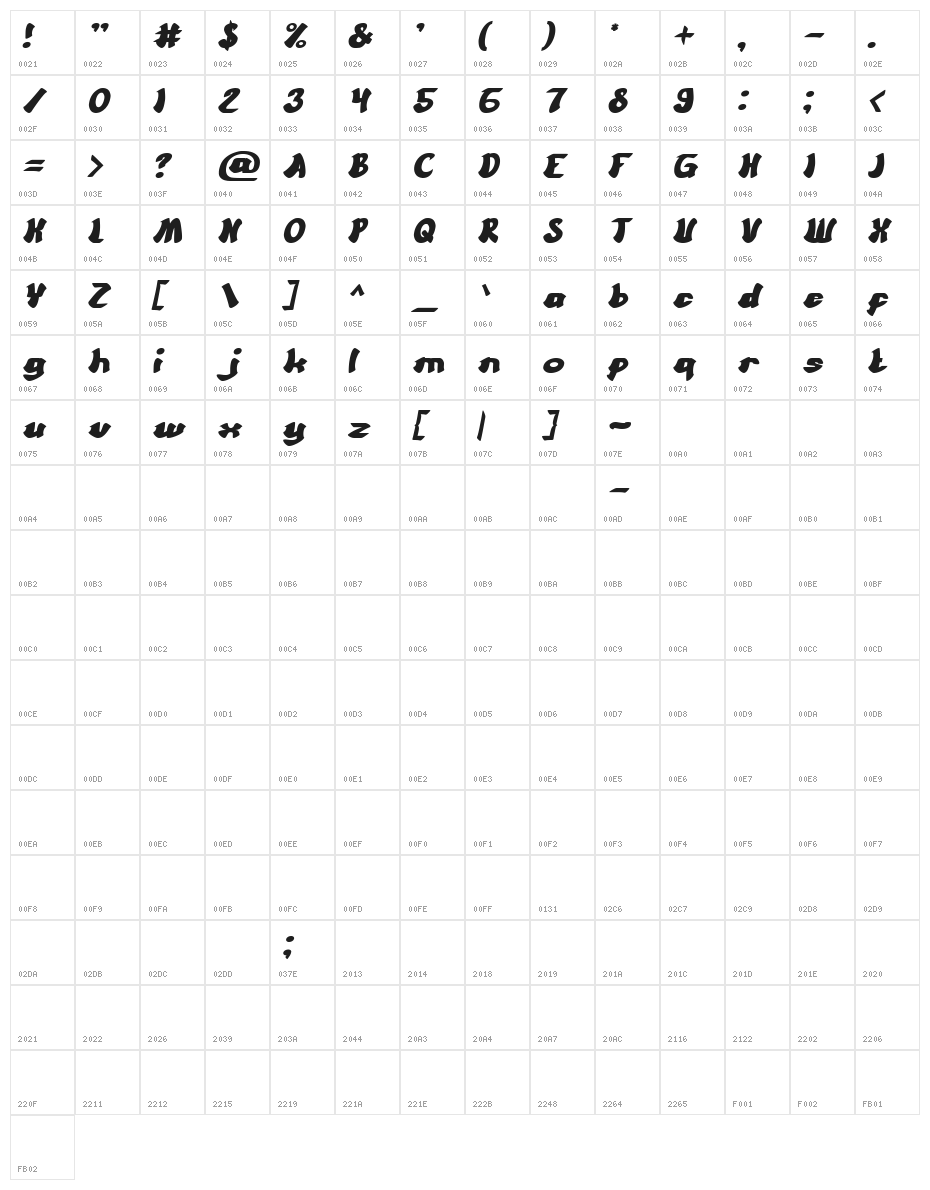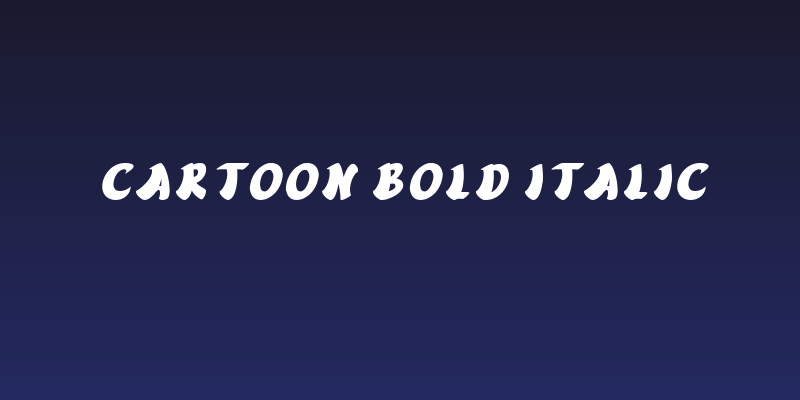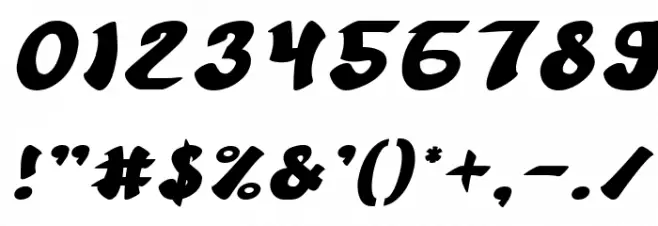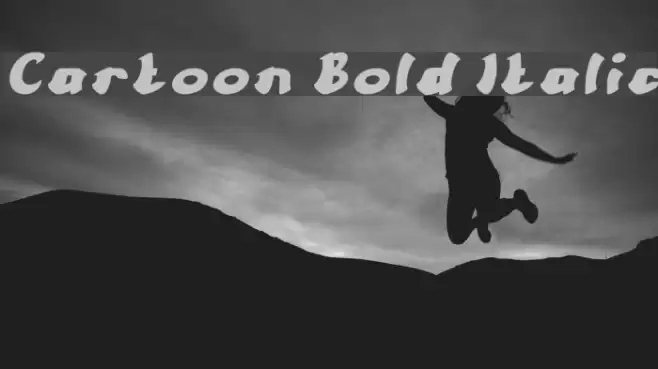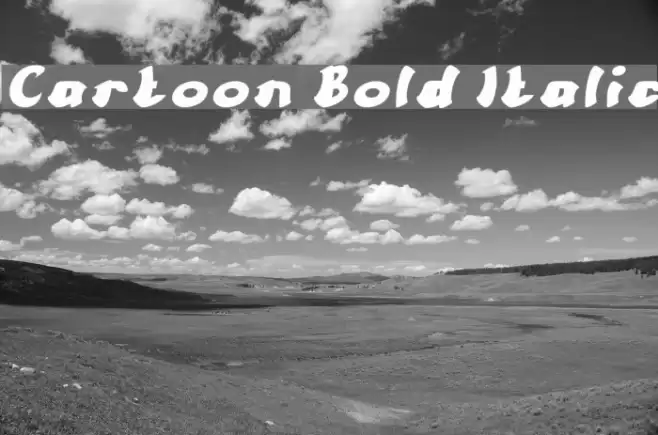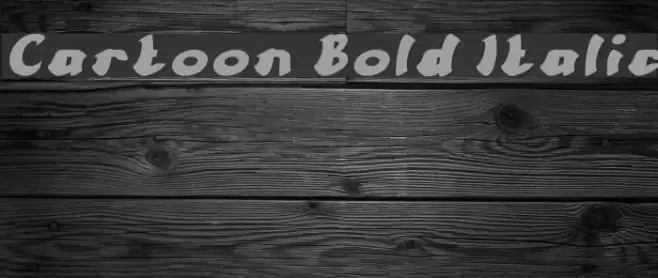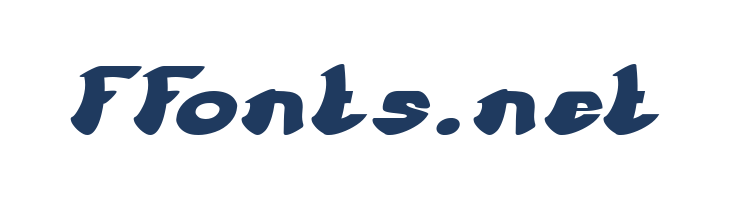
Cartoon Bold Italic Font
This playful and dynamic font features bold, italicized characters with a cartoonish flair. The letters are thick and rounded, giving them a friendly and approachable appearance. The exaggerated curves and slanted orientation add a sense of movement and energy, making it ideal for creative and informal designs. The uppercase and lowercase letters maintain a consistent style, while the numerals and special characters are designed to match the whimsical aesthetic. This font is perfect for projects that require a fun and engaging visual element.
| Overall Style | Playful, Cartoonish, Dynamic |
| Use Case | Headlines, Logos, Posters, Children's Content |
| Proposed Projects | Ideal for children's books, comic strips, playful branding, and animated video titles. |